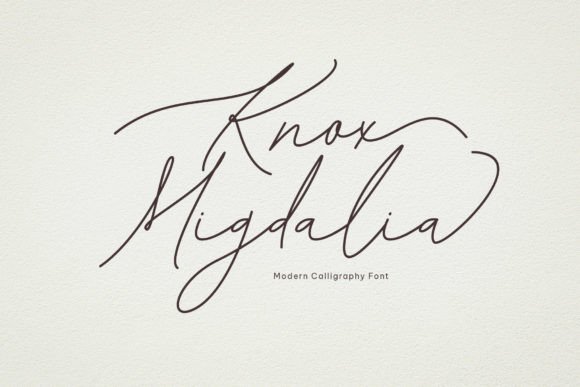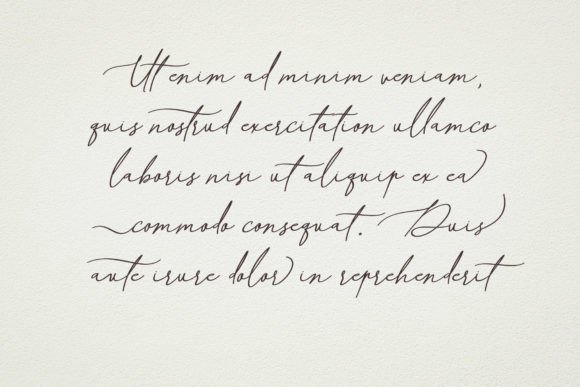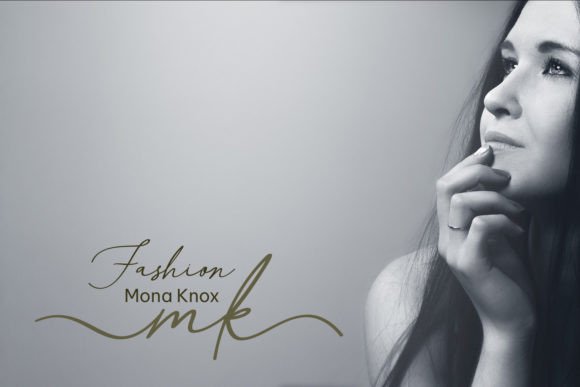
Add Charm and Elegance with Knox Migdalia Font
Knox Migdalia Font is a charming and elegant handwritten typeface that adds warmth and style to your creative projects. Its smooth and flowing strokes make it ideal for wedding invitations, thank-you cards, logos, and business cards. Whether you are designing for special occasions or branding, Knox Migdalia Font gives your work a personal and polished look.
Moreover, its graceful letterforms create a beautiful and inviting feel, helping your designs stand out effortlessly.
Versatile Uses for Knox Migdalia Font
Knox MigdaliaFont works beautifully in many design projects, such as:
Wedding and event invitations
Thank-you cards and greeting cards
Brand logos and corporate identity
Business cards and professional materials
Inspirational quotes and posters
Social media graphics and promotional content
Thanks to its elegant handwritten style, Knox MigdaliaFont adds both friendliness and sophistication to formal and casual designs alike.
Additionally, it features balanced spacing and kerning to keep your text clear and visually appealing across various sizes and formats.
Why Designers Choose Knox Migdalia Font
Designers and creatives appreciate Knox MigdaliaFont for its blend of charm and sophistication. It adds a handcrafted feel that connects with viewers and enhances the beauty of any project. Whether youβre a professional or a hobbyist, Knox MigdaliaFont is a versatile and lovely choice for your typography needs.
Use Knox MigdaliaFont to bring warmth and elegance to your next design.